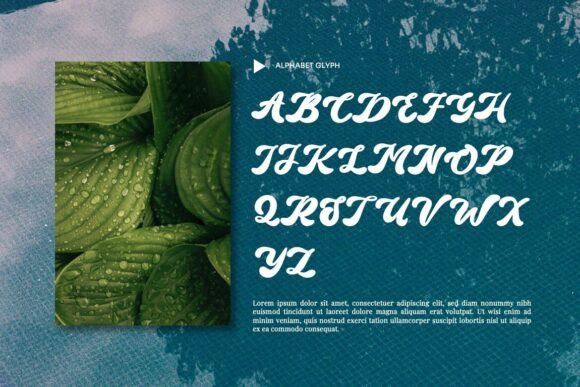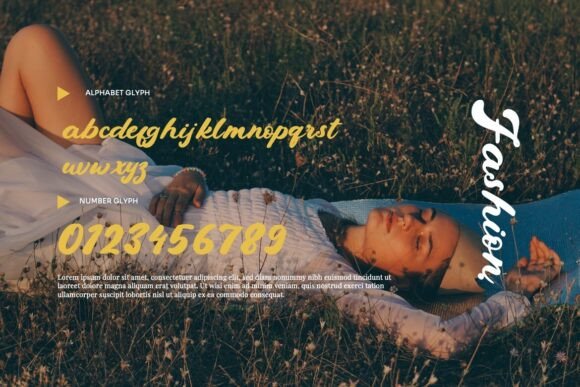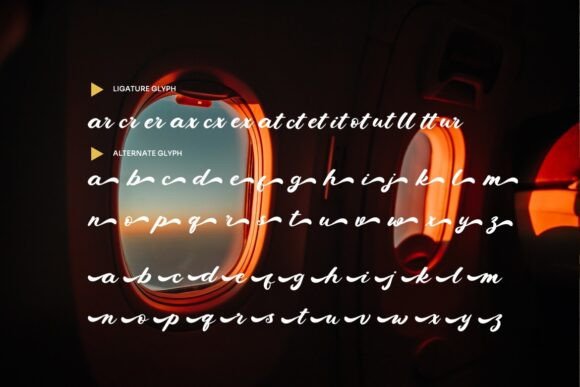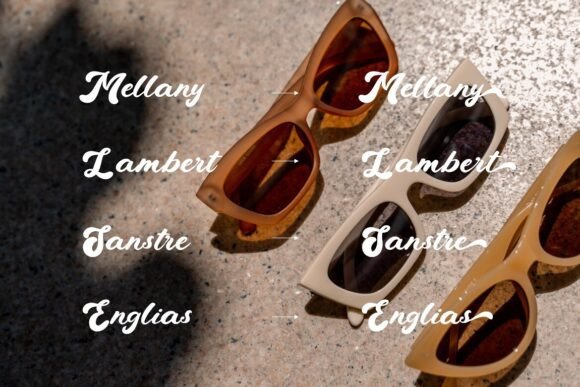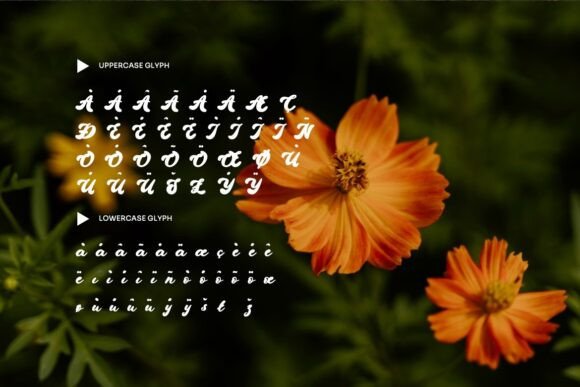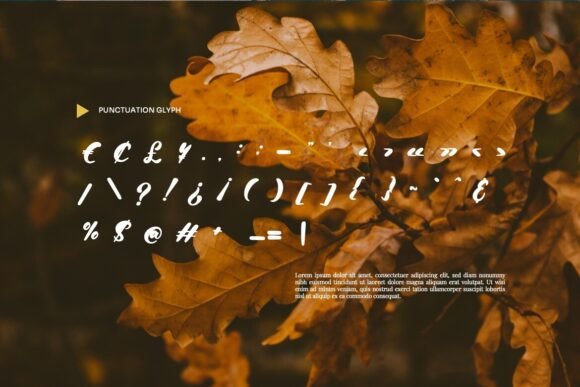
Discover the Timeless Charm of Etthany Font
As a designer, have you ever stumbled upon an old photograph or a vintage advertisement that sparks your creativity? Perhaps it’s the way the light falls on a worn, wooden sign or the elegant curves of a 1920s script. Those fleeting moments of inspiration can be the catalyst for some of our most innovative work. For me, it was a dusty old typewriter that led me to the Etthany Font – a retro script font that effortlessly combines classic elegance with modern charm.
The Etthany Font is more than just a design tool; it’s a key to unlocking the timeless appeal of retro design. Its bold, flowing strokes bring a vintage vibe to logos, posters, invitations, and social media graphics, making it the perfect addition to any designer’s toolkit.
Etthany Font Key Features
- Font Family: Etthany
- Font Style: Script
- Font Size: 1,000 glyphs, 1,400 characters
- Resolution: Supports high-resolution displays (up to 10,240 x 10,240 pixels)
- Unique Characteristics: Elegant, cursive design; supports a wide range of languages, including Latin, Greek, and Cyrillic scripts
Review of Etthany Font
As a designer, I was excited to dive into the Etthany Font and see what it had to offer. Here’s my honest review.
- ✨ Elegant and refined aesthetic: The Etthany Font has a sophisticated look that’s perfect for high-end branding and publications.
- ✨ Wide range of languages supported: This font is designed to be highly legible, making it suitable for a variety of languages and cultural contexts.
- ✨ Strong character set: The font has a comprehensive set of characters, including ligatures, swashes, and alternates, which adds to its overall charm.
- ⚠️ Limited expressiveness: While the font is elegant, it may lack the expressiveness and emotional impact that some designers seek in a typeface.
- ⚠️ May not be ideal for bold or playful contexts: The Etthany Font is best suited for refined and sophisticated projects, and may not be the best choice for more playful or bold designs.
Overall impression:
The Etthany Font is a solid choice for designers who need a refined and elegant typeface for their projects. While it may not be the most expressive or versatile font out there, it’s a great option for high-end branding, publications, and other sophisticated contexts.
Tips for Getting the Most Out of Etthany Font
For optimal results, use Etthany Font in conjunction with bold or italic styles to add emphasis.
Etthany Font pairs well with minimalist designs and modern color schemes.
Etthany Font is ideal for:
Headlines and titles
Body text for modern designs
Branding and logos
Alternatives to Etthany Font
Great Vibes Font is a beautiful, elegant script font ideal for creating a luxurious and high-end feel in your designs. It is perfect for use in invitations, wedding stationery, and other special occasions.
Compared to Etthany Font, Great Vibes Font has a more refined and sophisticated look, making it suitable for formal and upscale projects.
Pacifico Font is a modern, cursive script font that exudes a sense of relaxation and tranquility. It is perfect for use in travel and tourism-related projects, as well as for creating a beachy or coastal vibe.
Pacifico Font has a more casual and laid-back feel compared to Etthany Font, making it ideal for projects that require a relaxed and approachable tone.
Carolyna Pro Font is a stylish and sophisticated script font that is perfect for use in fashion, beauty, and luxury brands. It has a sleek and modern look that is sure to grab attention.
Compared to Etthany Font, Carolyna Pro Font has a more contemporary and edgy feel, making it suitable for projects that require a bold and eye-catching look.
Alex Brush Font is a beautiful, elegant script font that is perfect for use in high-end branding, packaging, and advertising projects. It has a classic and sophisticated look that is sure to impress.
Alex Brush Font has a more refined and polished look compared to Etthany Font, making it ideal for projects that require a high level of sophistication and elegance.
Etthany Font Creative Project Ideas
Create a unique travel journal using the Etthany Font. This font’s playful, handwritten feel is perfect for recording memories from around the world.